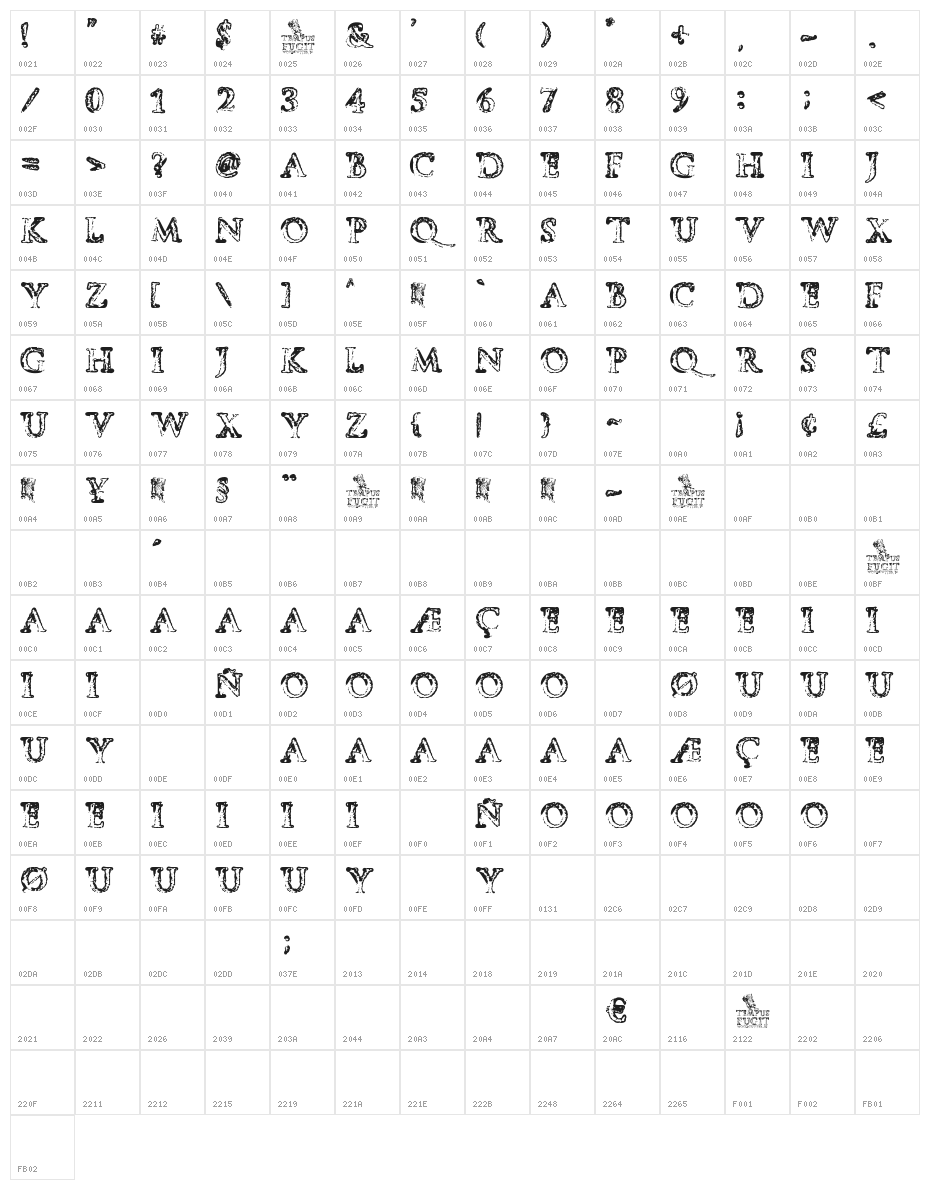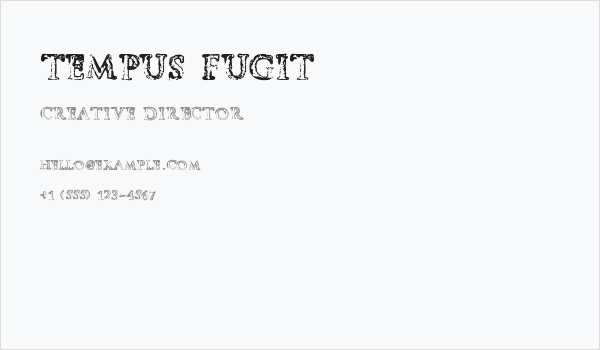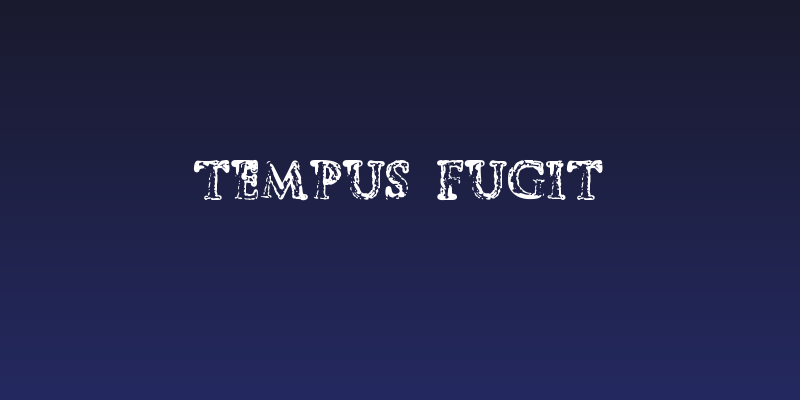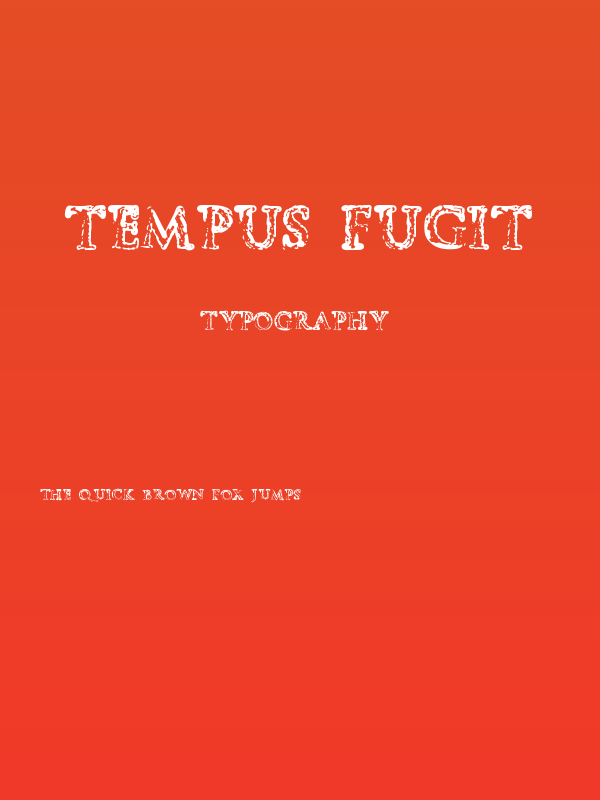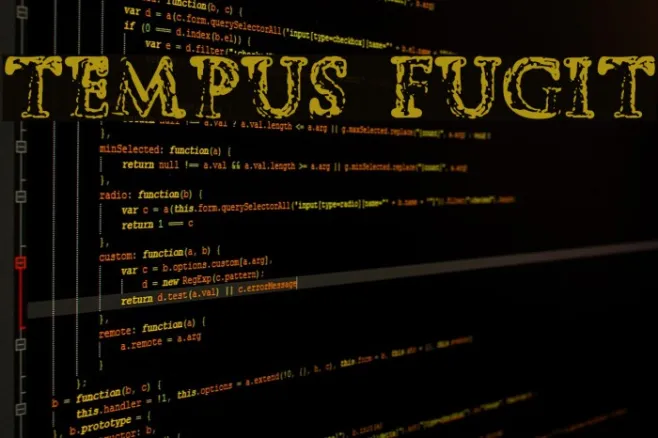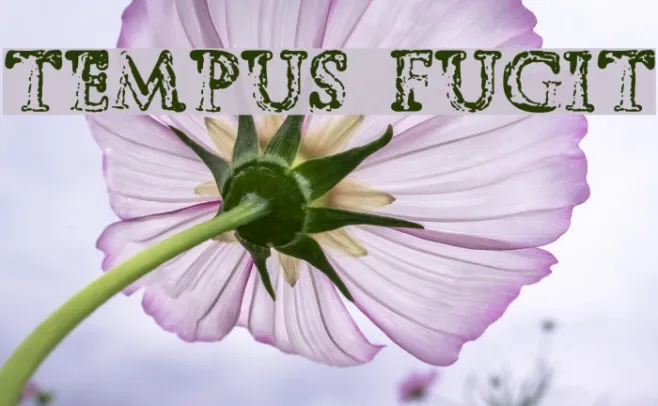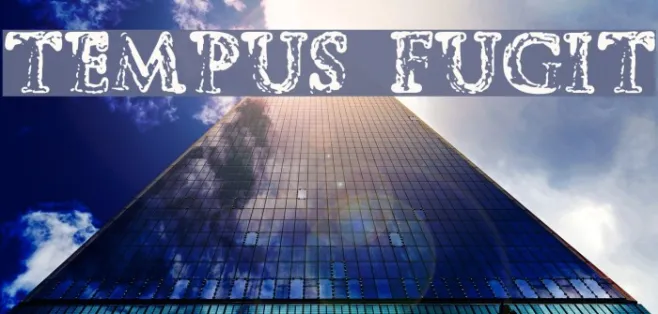
Tempus Fugit Font
Tempus Fugit Description
This font features a distressed, vintage style with a textured appearance that gives it a worn, aged look. The characters are bold and have a serif design, with uneven edges and a rough texture that suggests a hand-crafted or weathered effect. The uppercase and lowercase letters maintain a consistent style, while the numbers and special characters complement the overall aesthetic. This font is ideal for projects that require a rustic or antique feel, such as posters, branding for artisanal products, or themed event invitations.
| Proposed Projects | Ideal for vintage-themed posters, artisanal product branding, or rustic event invitations. |